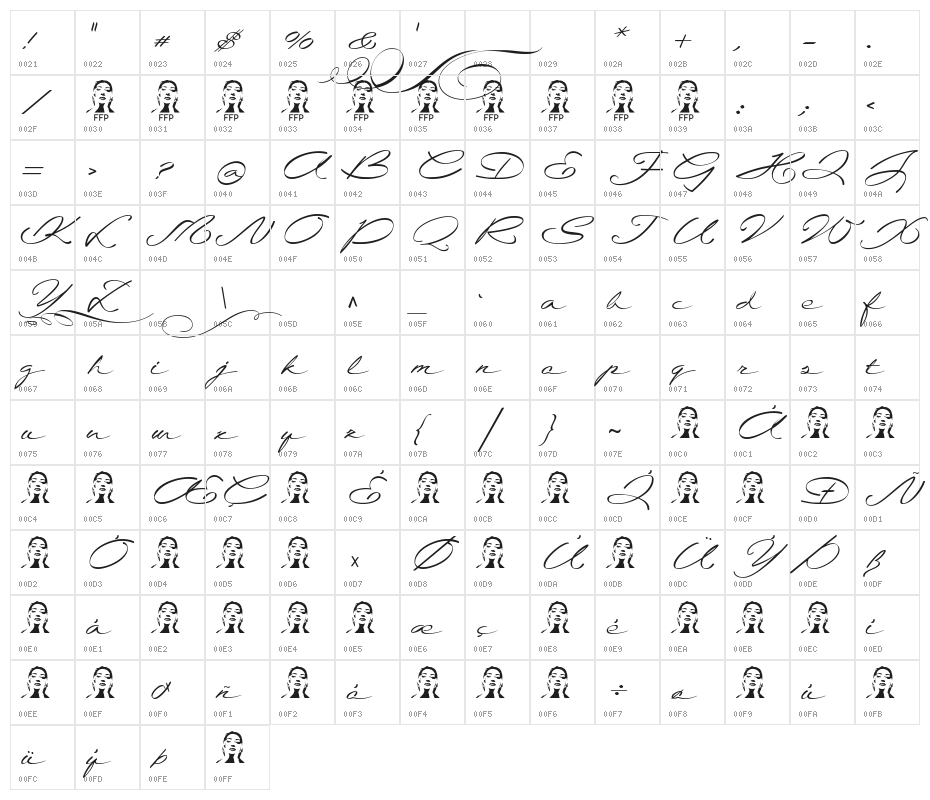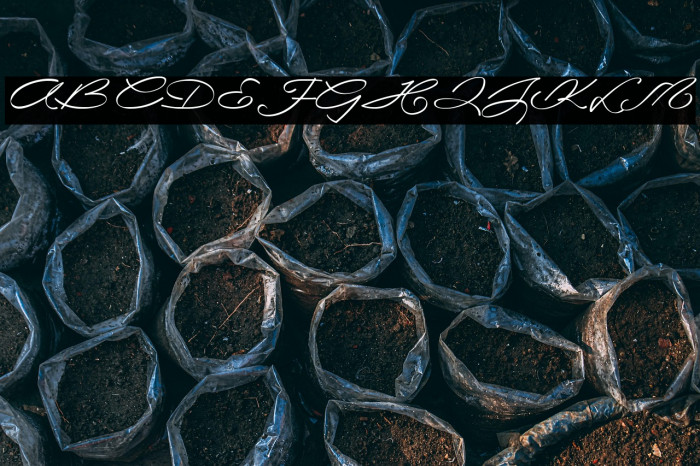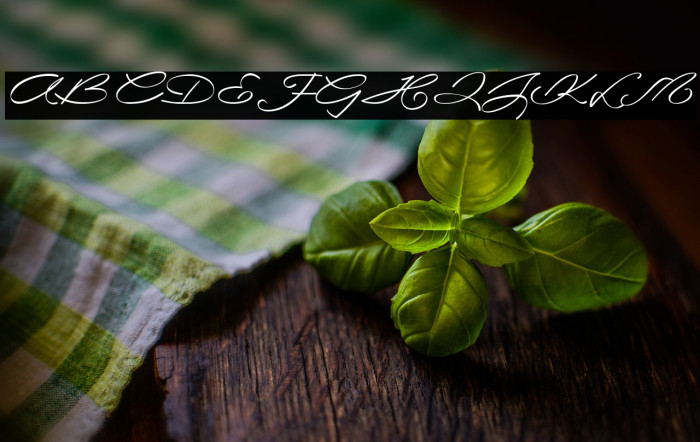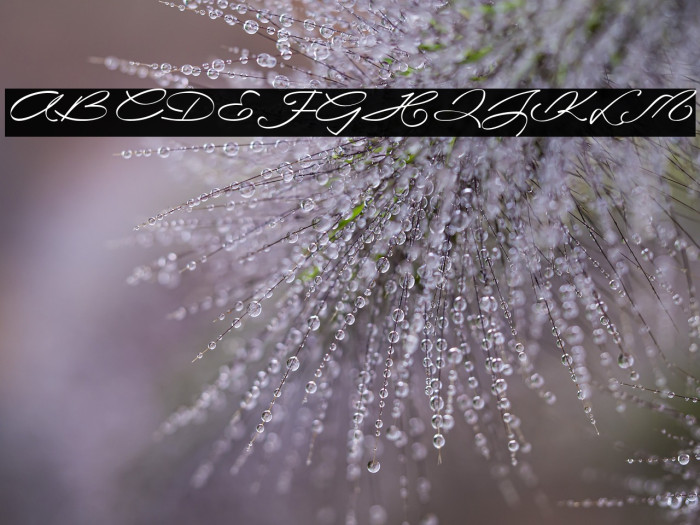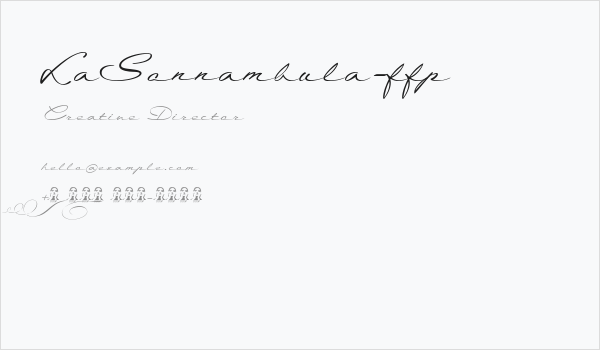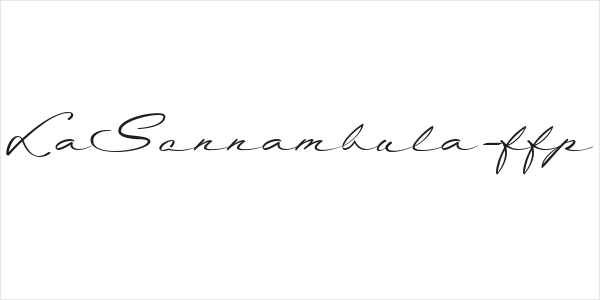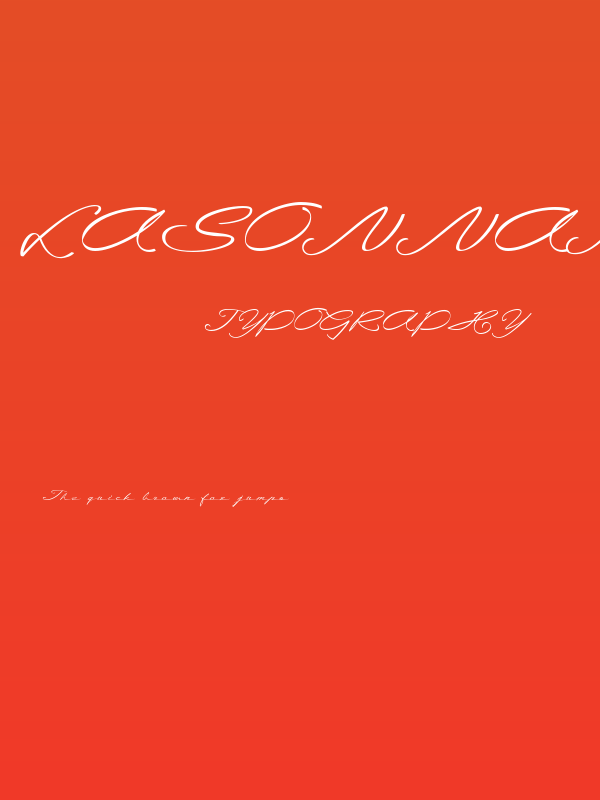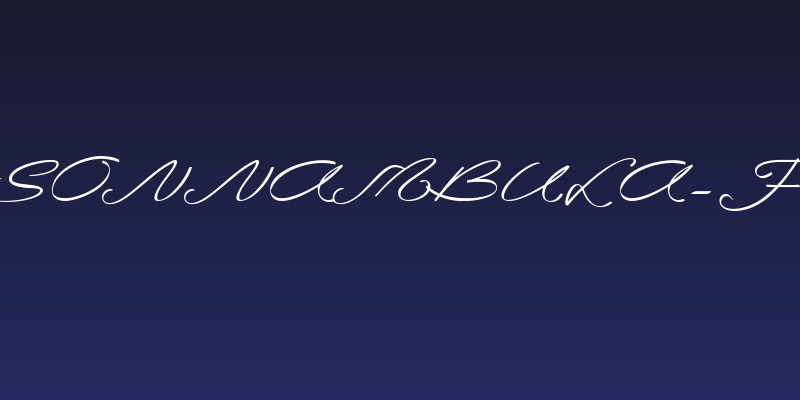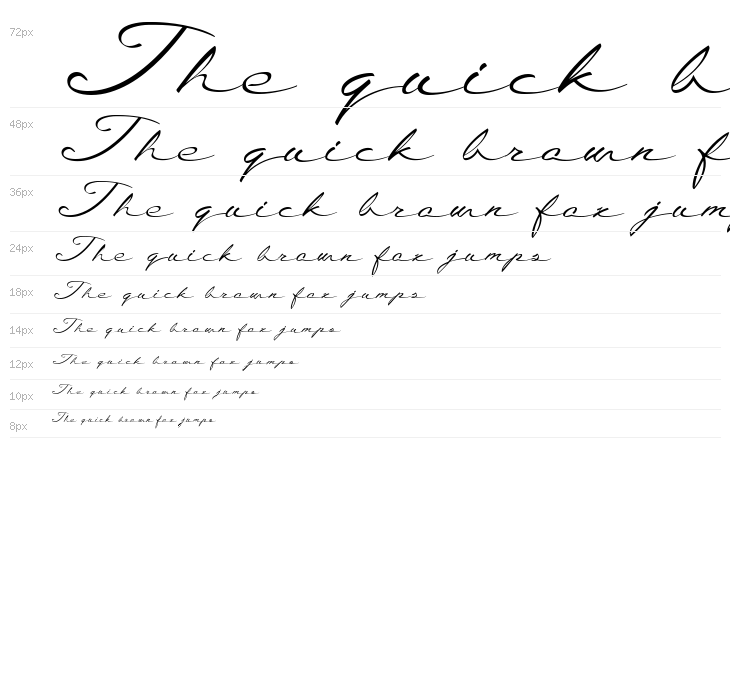
LaSonnambula-ffp Font
LaSonnambula-ffp Description
This elegant script font features fluid, interconnected letterforms that exude a sense of sophistication and grace. The uppercase letters are characterized by their sweeping curves and flourishes, while the lowercase letters maintain a consistent flow, enhancing readability. The font's delicate strokes and high contrast between thick and thin lines add to its refined appearance. Special characters are seamlessly integrated, maintaining the overall aesthetic. This font is ideal for projects that require a touch of elegance and style.